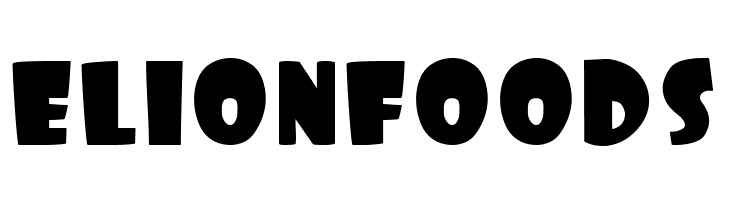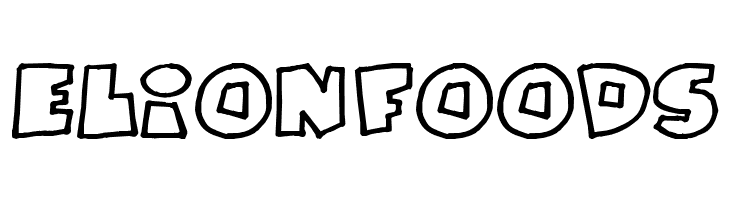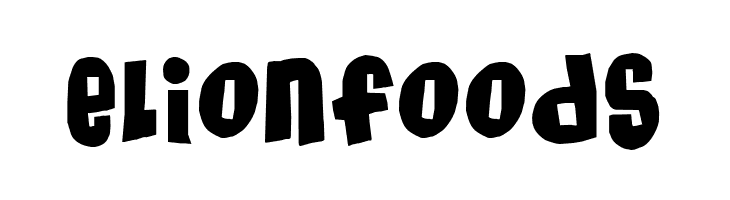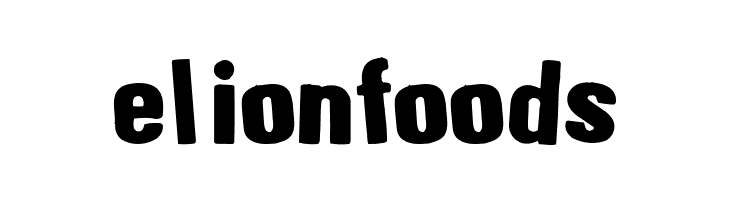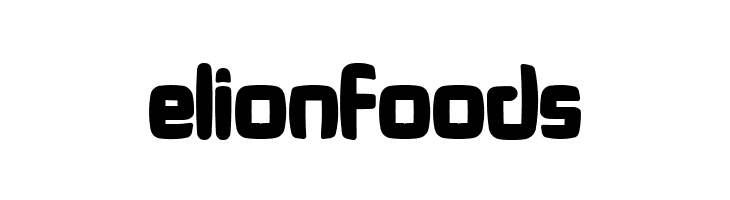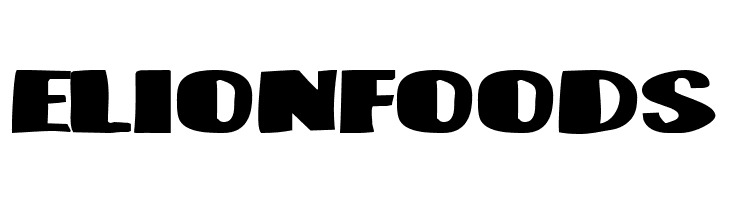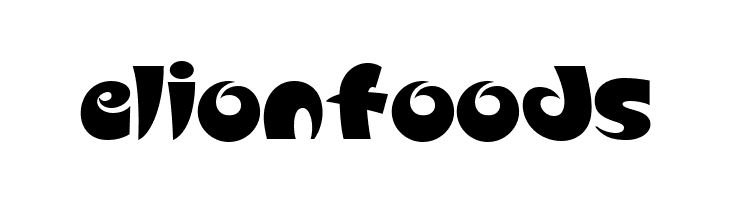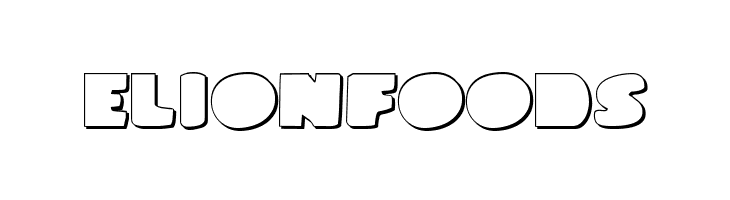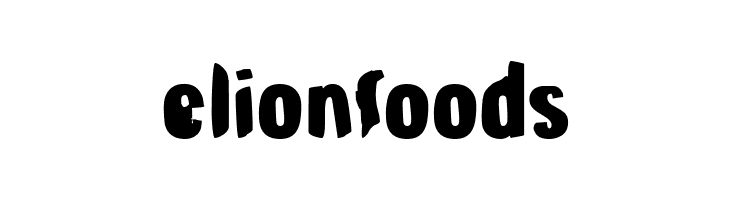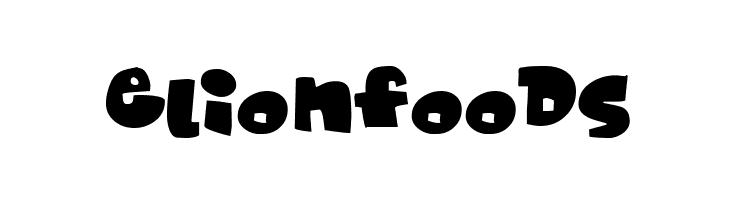
A playful, textured font with bold, chunky letters and a whimsical design.
Bold, chunky font with rounded edges and a strong, playful presence.
A bold, playful font with rounded edges and a chunky appearance.
A bold, rounded font with a playful and chunky style.
A bold, decorative font with a playful, chunky style.
A bold, playful font with a chunky, irregular design and retro flair.
A bold, playful font with geometric shapes and a chunky style.
A bold, playful font with rounded edges and a chunky, retro style.
A bold, playful font with chunky, dynamic characters.
A bold, playful font with rounded, chunky letterforms and minimal contrast.
A bold, chunky font with a playful, retro aesthetic and thick, uniform strokes.
A bold, chunky font with a playful, handcrafted appearance.
A bold, playful typeface with a chunky, whimsical style.
A bold, chunky font with playful, irregular shapes and rounded edges.
A bold, chunky font with a playful, hand-drawn style.
A bold, playful font with chunky, irregular shapes and a whimsical style.
A playful, bold font with rounded, chunky characters and a hand-drawn feel.
A bold, chunky font with rounded edges and a playful style.
A bold, playful italic font with rounded, chunky characters and a whimsical style.
A bold, playful font with chunky, dynamic characters and tight spacing.
A bold, playful font with chunky, dynamic letters and a retro vibe.
A bold, playful font with chunky, irregular shapes for a whimsical touch.
A bold, retro-inspired font with rounded, chunky characters.
A playful, chunky font with a hand-drawn, whimsical style.
A bold, playful font with chunky, dynamic letters and a lively style.
A bold, chunky, and playful sans-serif font with a modern retro vibe.
A playful, bold font with a chunky, irregular style and a whimsical, hand-drawn appearance.
( Fonts by Craft Supply Co - Personal-use only. For commercial use please contact owner. )
A playful, bold font with rounded, chunky letters and a whimsical style.
A bold, playful font with chunky, cartoonish letterforms.
A bold, rounded font with a playful and chunky style.
( Fonts by Dirt2.com - SickCapital - Andrew Hart - Personal-use only. For commercial use please contact owner. )
A playful, bold font with chunky, rounded letters and a hand-drawn feel.
A bold, rounded font with a playful and chunky style.
A bold, playful font with irregular, chunky letterforms and a hand-crafted appearance.
A bold, playful font with chunky, irregular letterforms and high contrast.
A bold, playful font with geometric shapes and a chunky design.